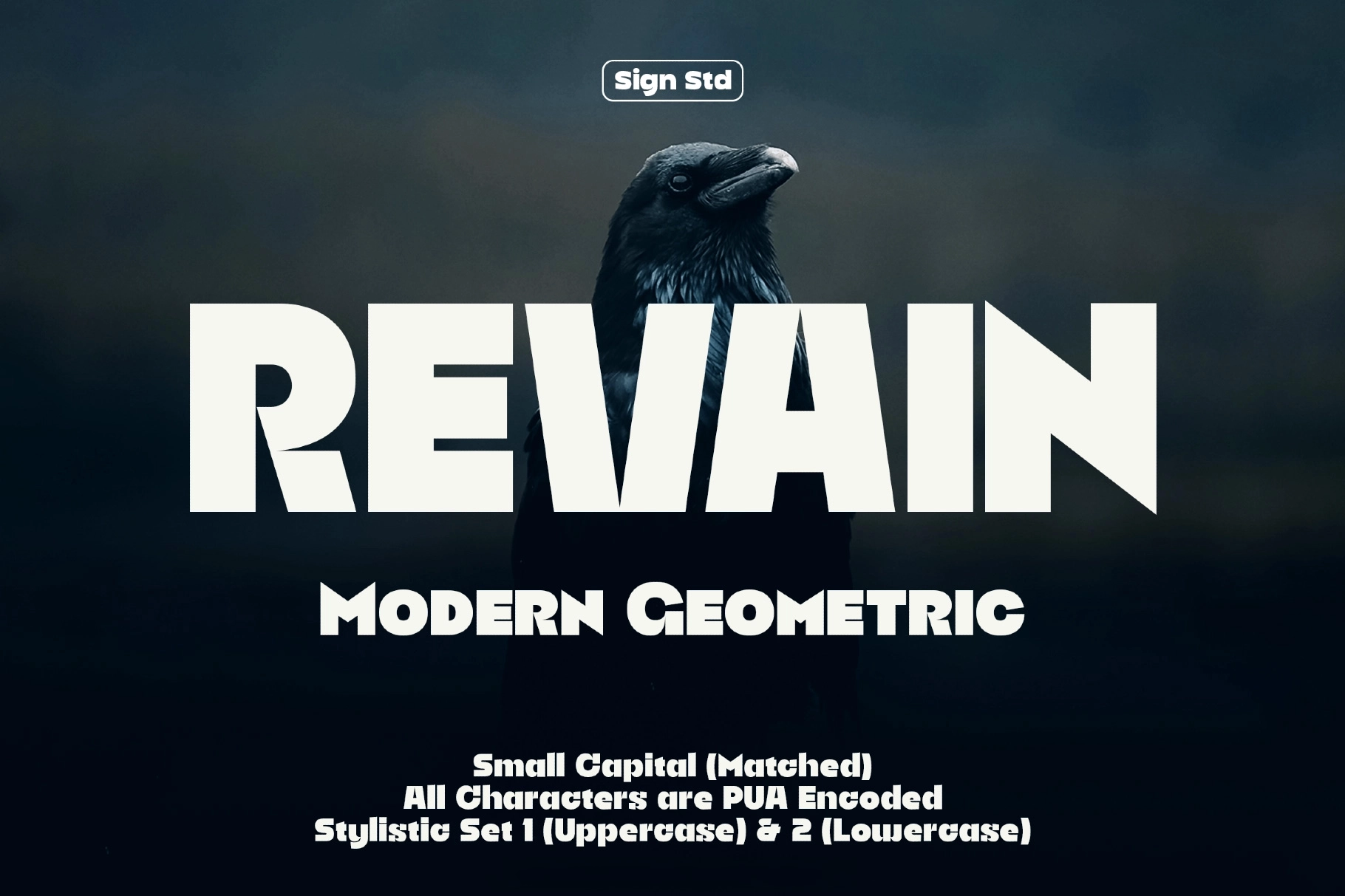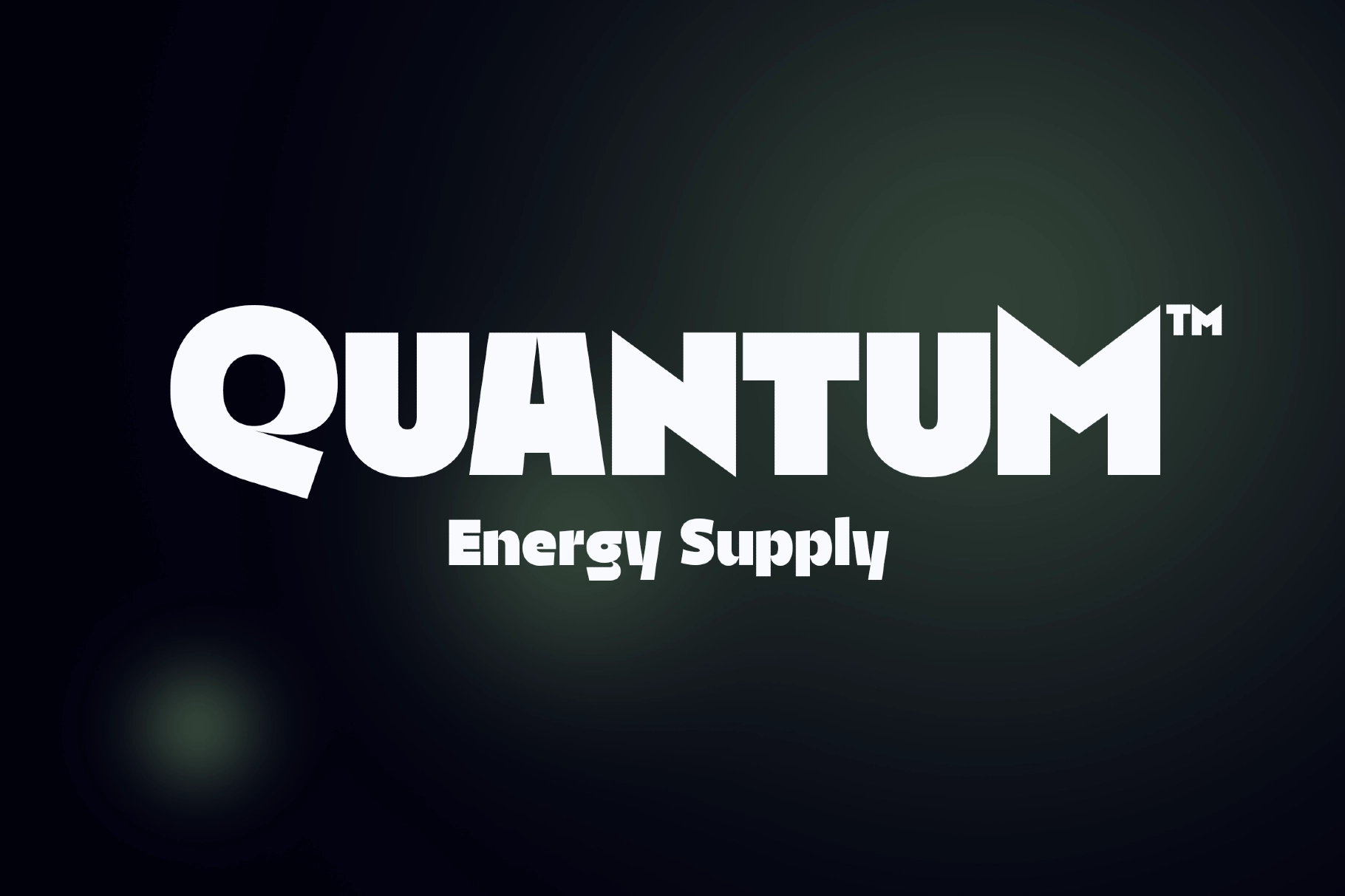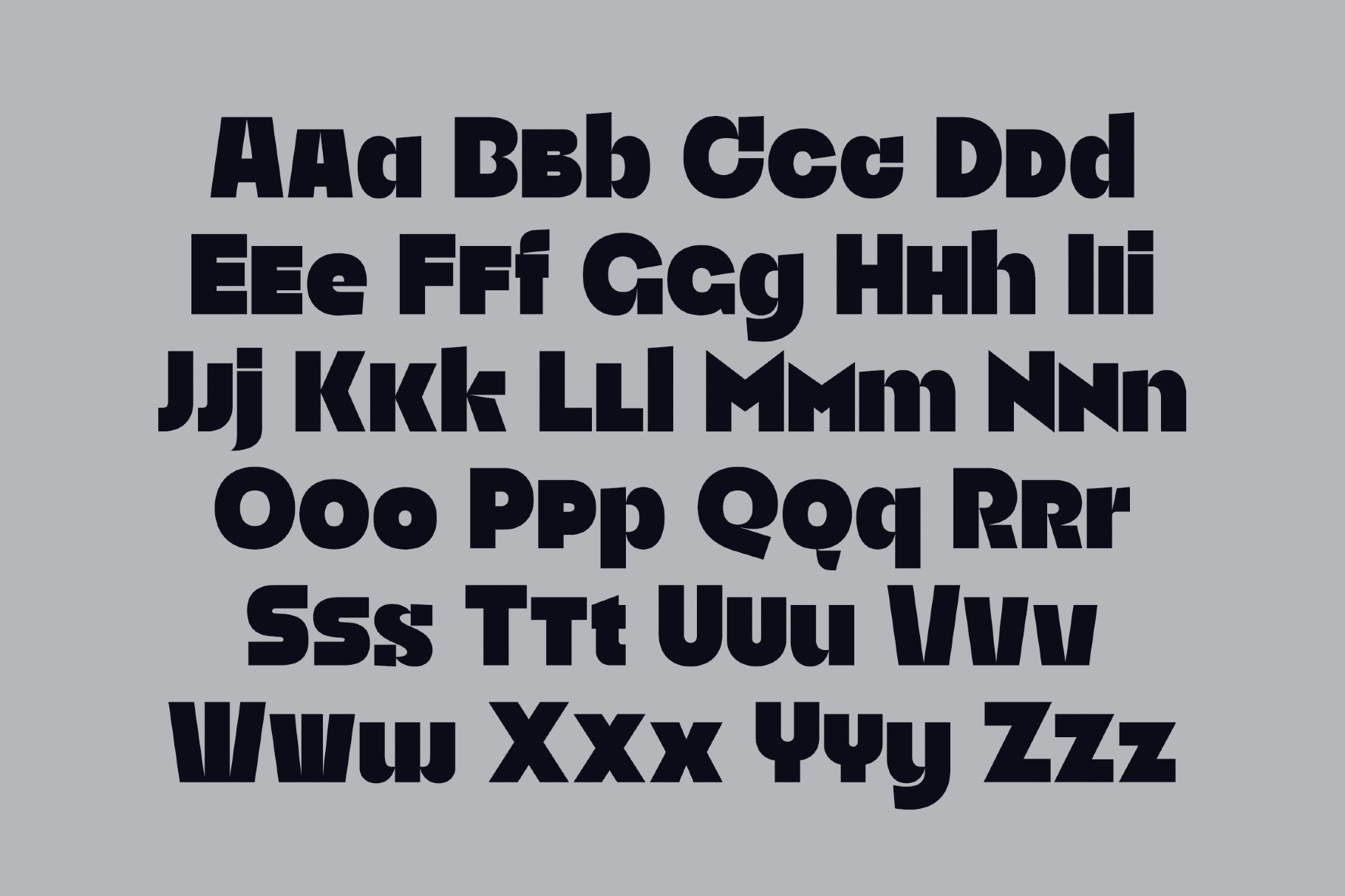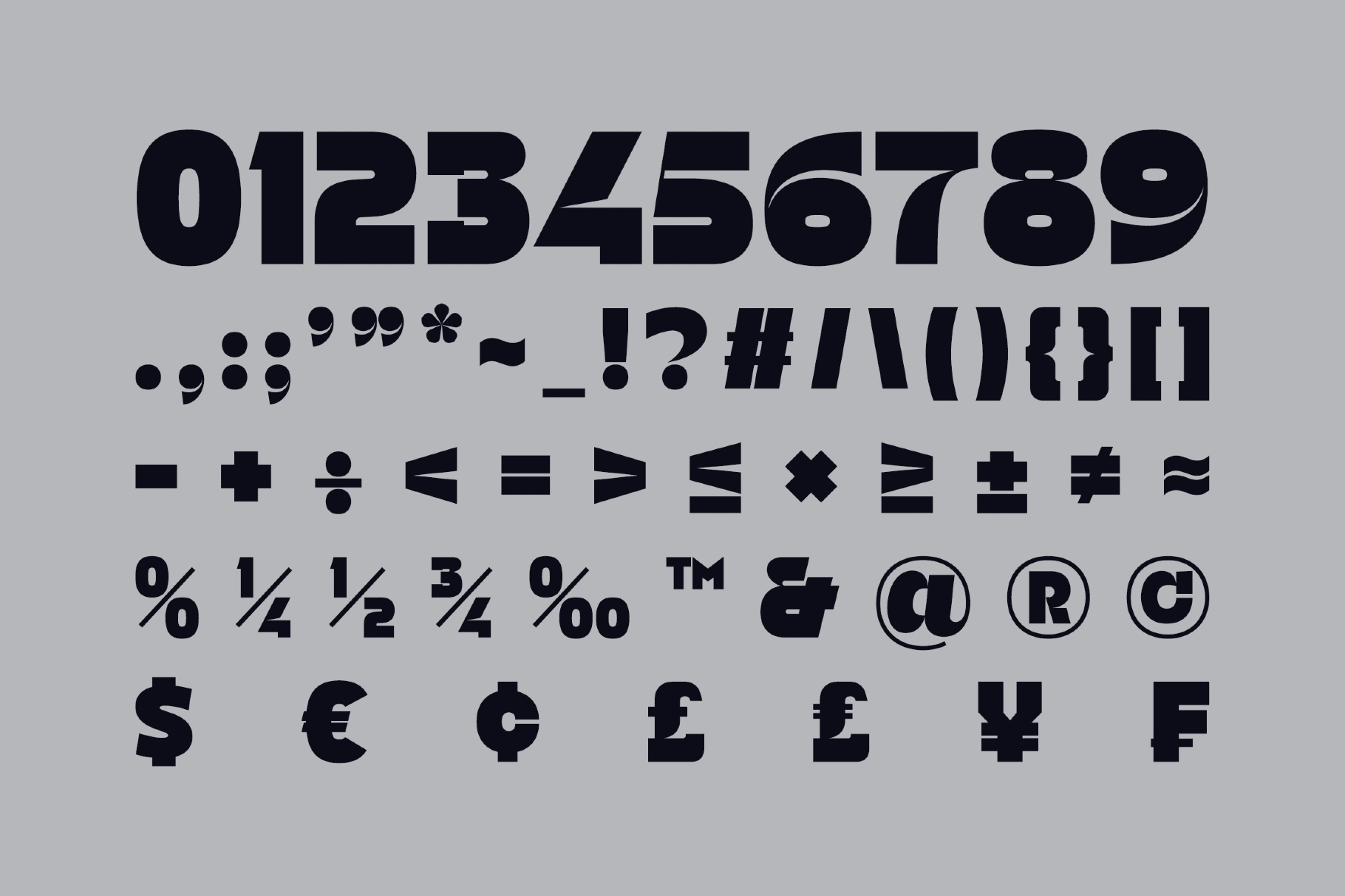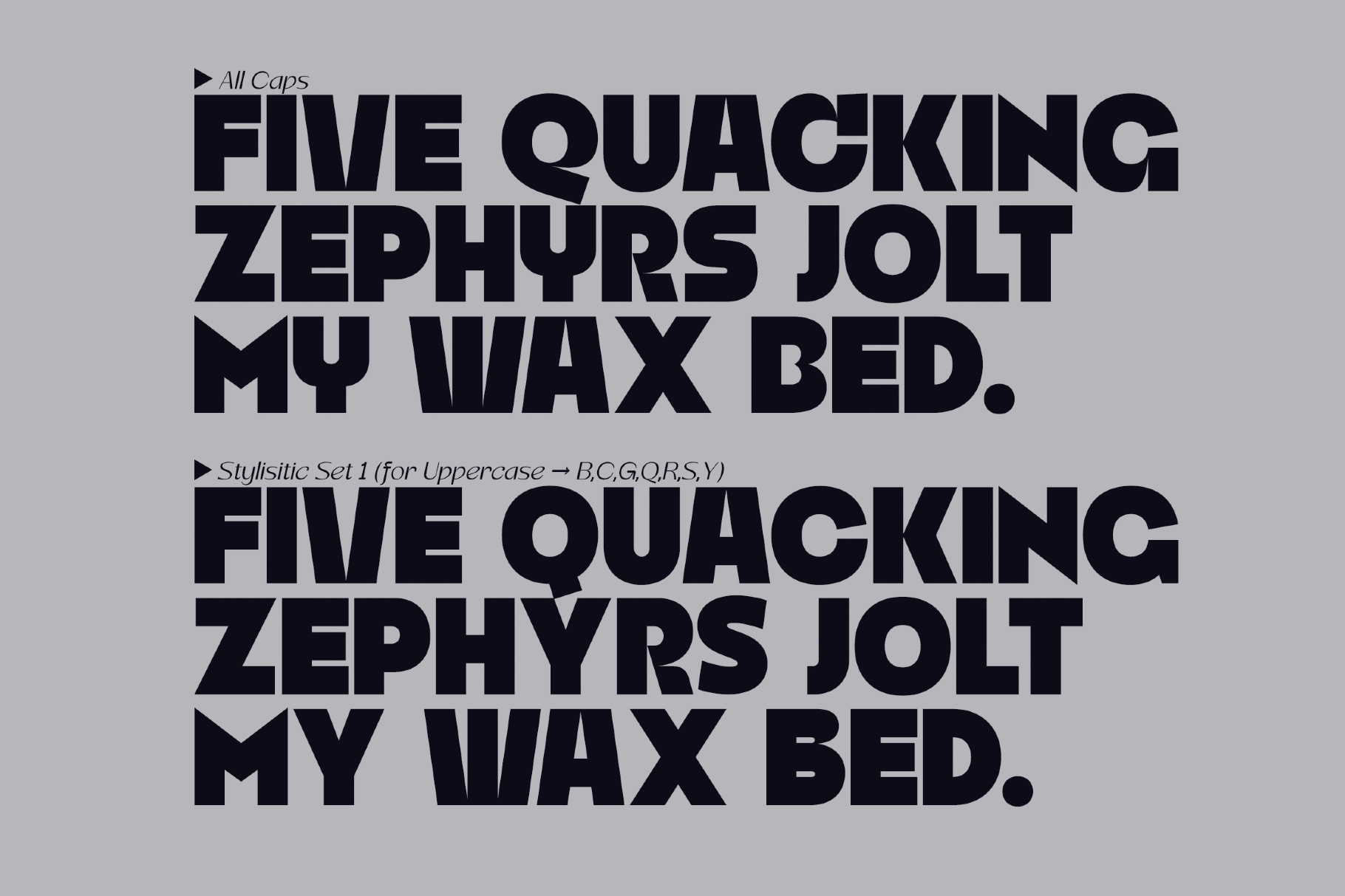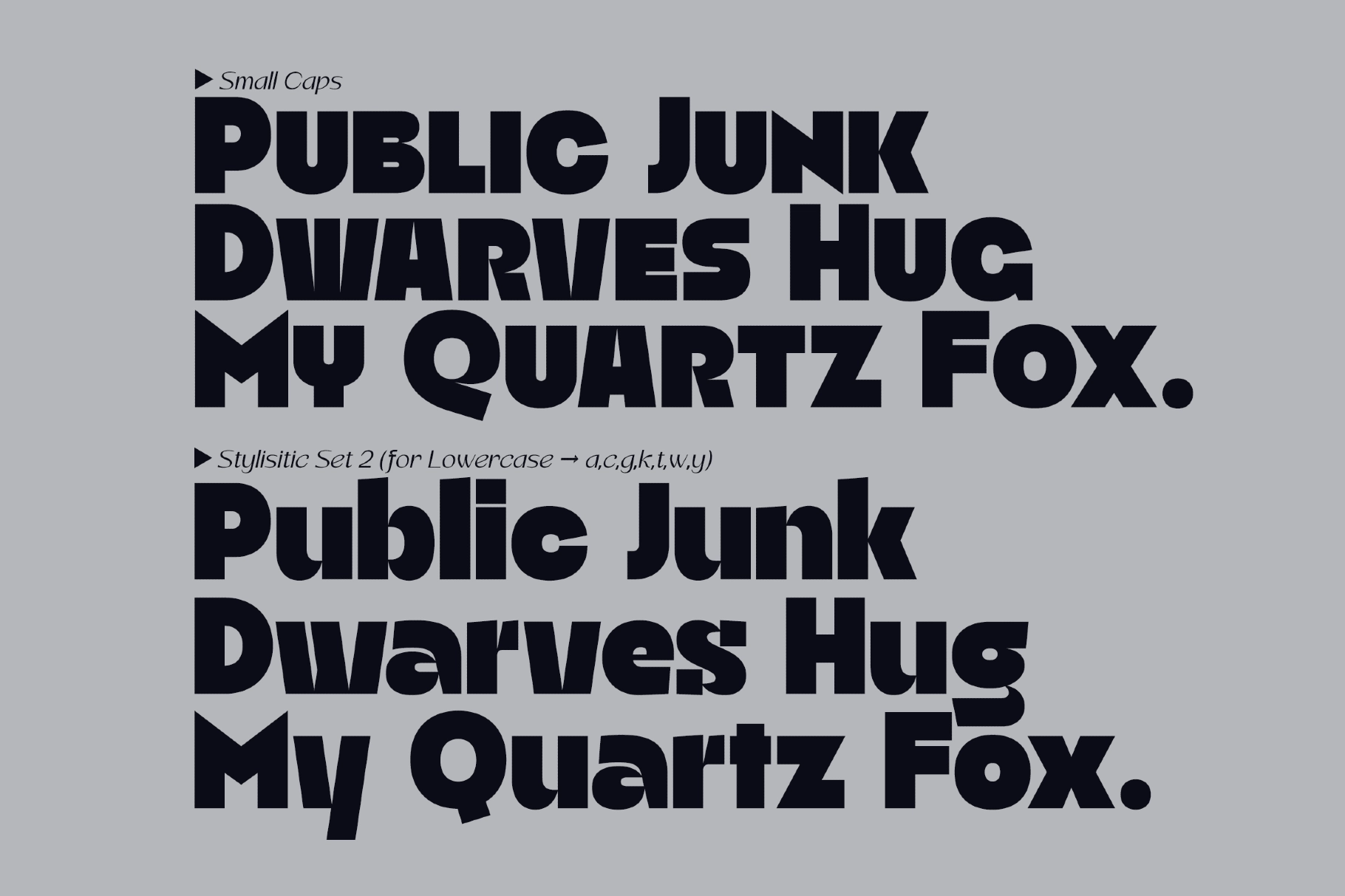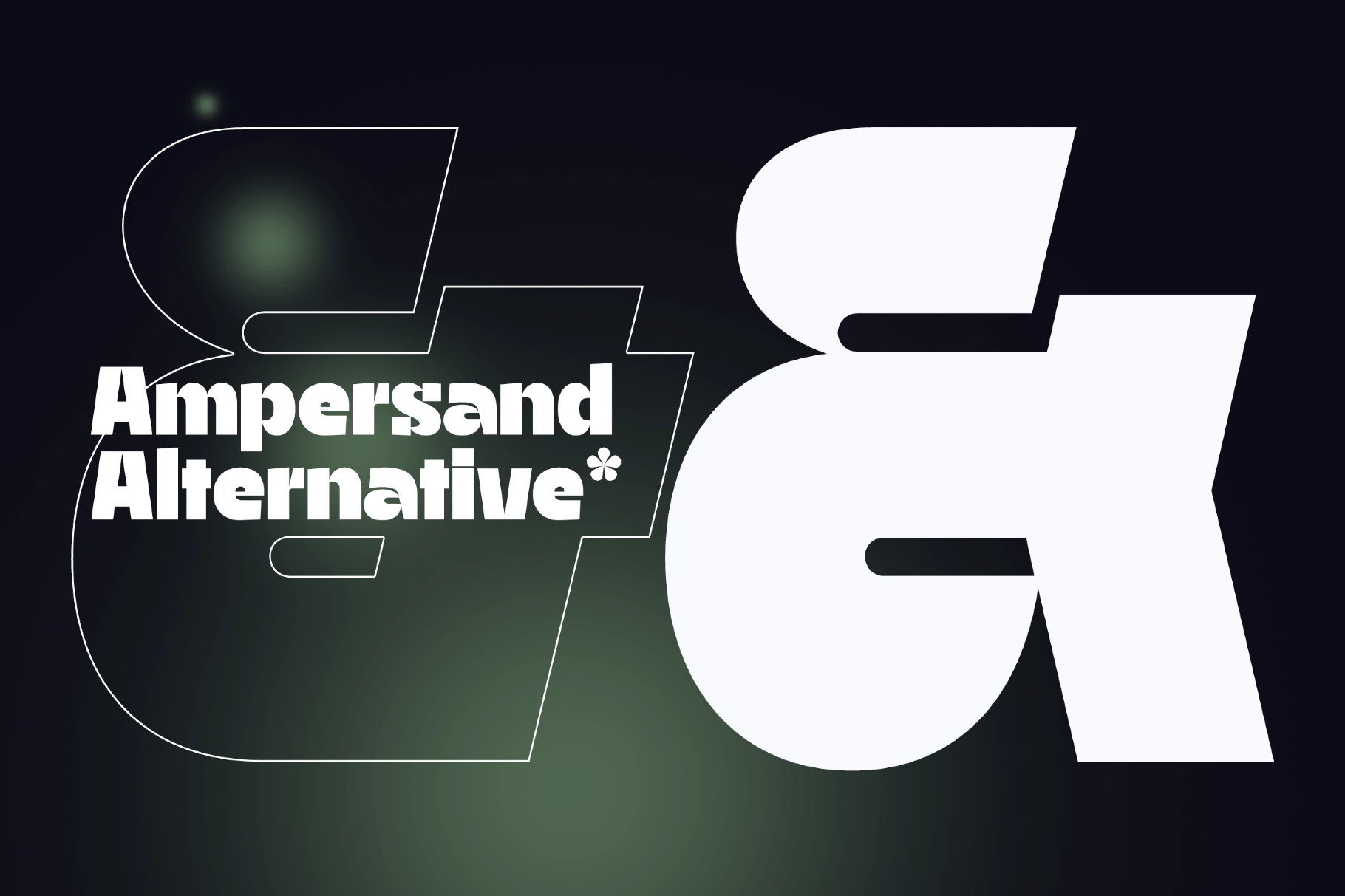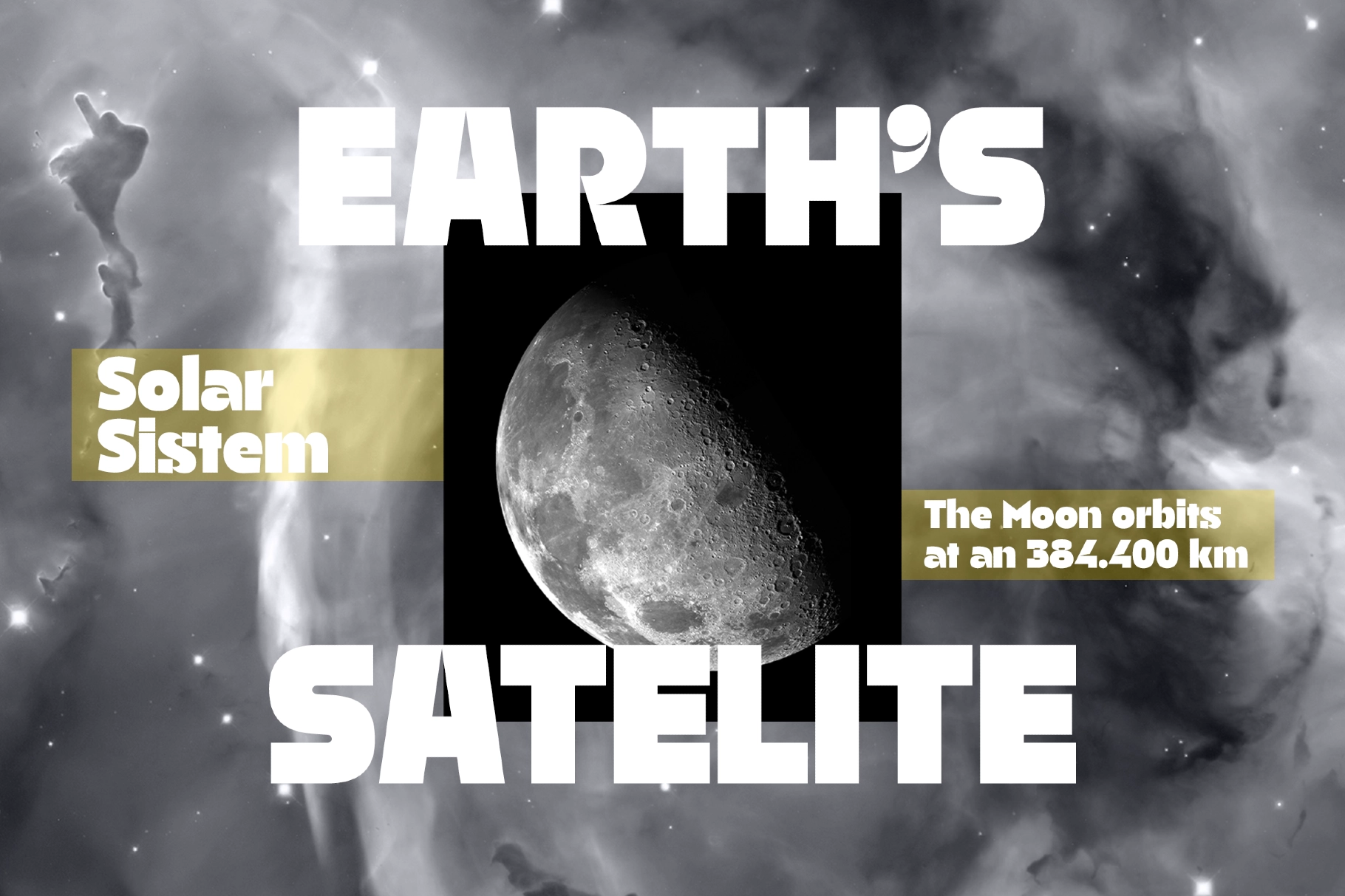
Revain - Modern Geometric Sans Font
Revain – Modern Geometric Sans Font is a bold geometric sans serif built for strong visual impact and contemporary design. Its clean structure, sharp cuts, and confident proportions create a powerful typographic voice that feels modern, precise, and highly legible.
Designed for versatility, Revain works seamlessly across branding, editorial layouts, digital interfaces, and display typography. With its geometric foundation and expressive alternates, it allows designers to create striking compositions that balance clarity with personality.